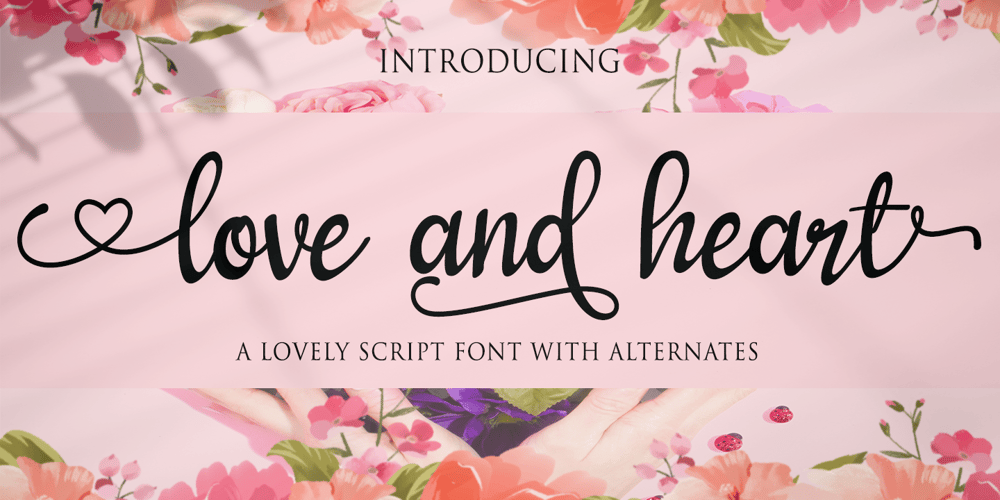
Love and Heart Font Family was designed by Dian Haniffan Hadi and published by Beary. Love and Heart contains 1 styles and family package options. Love and Heart is an amazing hand lettering font with an attractive and natural look. Every single letters has been carefully crafted to make your text looks beautiful. This font contains over 256 glyphs, including over 57 alternate characters with swashes. It has over 60 extended Latin characters for language support. Love and Heart is suitable for invitations, branding, advertising, poster design, and more. It is PUA encoded so all characters are accessible via Character Map, Font Book, or the font management program of your choice.